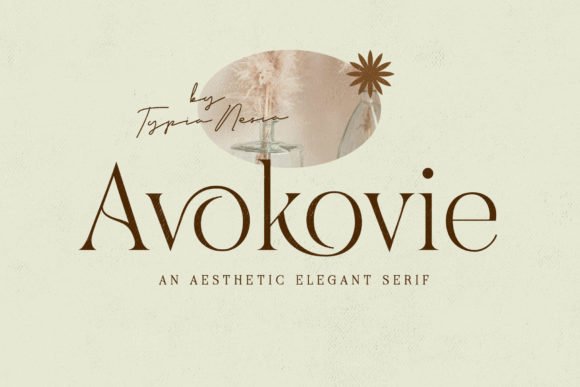
Unleash Your Creativity with the Avokovie Font
Have you ever stared at a blank page, searching for the perfect font to bring your design to life? It’s that moment of hesitation that can make or break a project. But what if I told you there’s a font that can elevate your design game and make your creative process a breeze?
Meet the Avokovie Font, a stunning serif font that’s designed to make a statement. With its elegant lines and sophisticated feel, it’s perfect for luxury logos, editorial design, and branding. The Avokovie Font is more than just a font – it’s a tool that can help you create stunning typography and take your designs to the next level. Whether you’re a seasoned designer or just starting out, this versatile font is a valuable addition to your toolkit.
- Unique Characteristics: Avokovie features a unique blend of modern and vintage elements, with intricate details and subtle flair, making it perfect for creating eye-catching designs.
- Kerning and Ligatures: Avokovie includes advanced kerning and ligature pairs, ensuring seamless text flow and professional-looking typography.
Avokovie Font Review
Overall, I’m quite impressed with the Avokovie font. It has a unique and quirky charm that could be a great fit for certain design projects. ✨ The font’s rounded edges and playful curves make it perfect for creating a friendly and approachable atmosphere.
Here are some of the things that work well with Avokovie:
- ✨ Unique and distinctive style that can add character to a design
- ✨ Friendly and approachable tone that’s perfect for branding and marketing materials
- ✨ Highly legible, even at smaller font sizes
- ⚠️ Limited flexibility – Avokovie may not be suitable for more formal or corporate designs
- ⚠️ Some users may find the font too playful or immature for certain applications
- ⚠️ Limited character set – Avokovie may not support all languages or special characters
Overall, I’d say Avokovie is a great choice for designers who want to add a bit of personality to their projects. With its unique style and friendly tone, it’s perfect for branding, marketing, and other design applications where a playful vibe is desired.
For optimal results, use Avokovie font in headings and titles to add a touch of sophistication to your designs.
- Health and wellness marketing.
- Travel and tourism advertising.